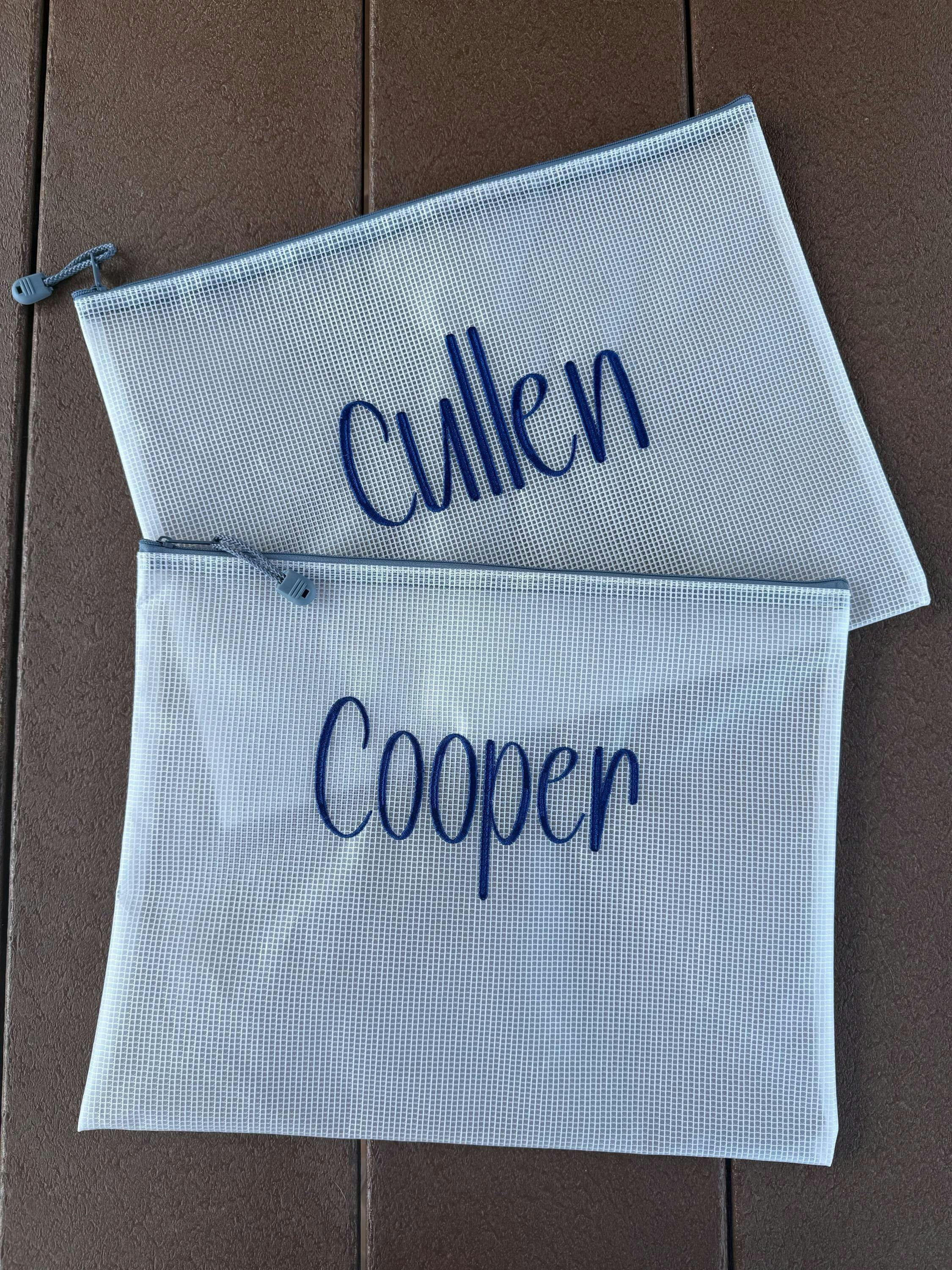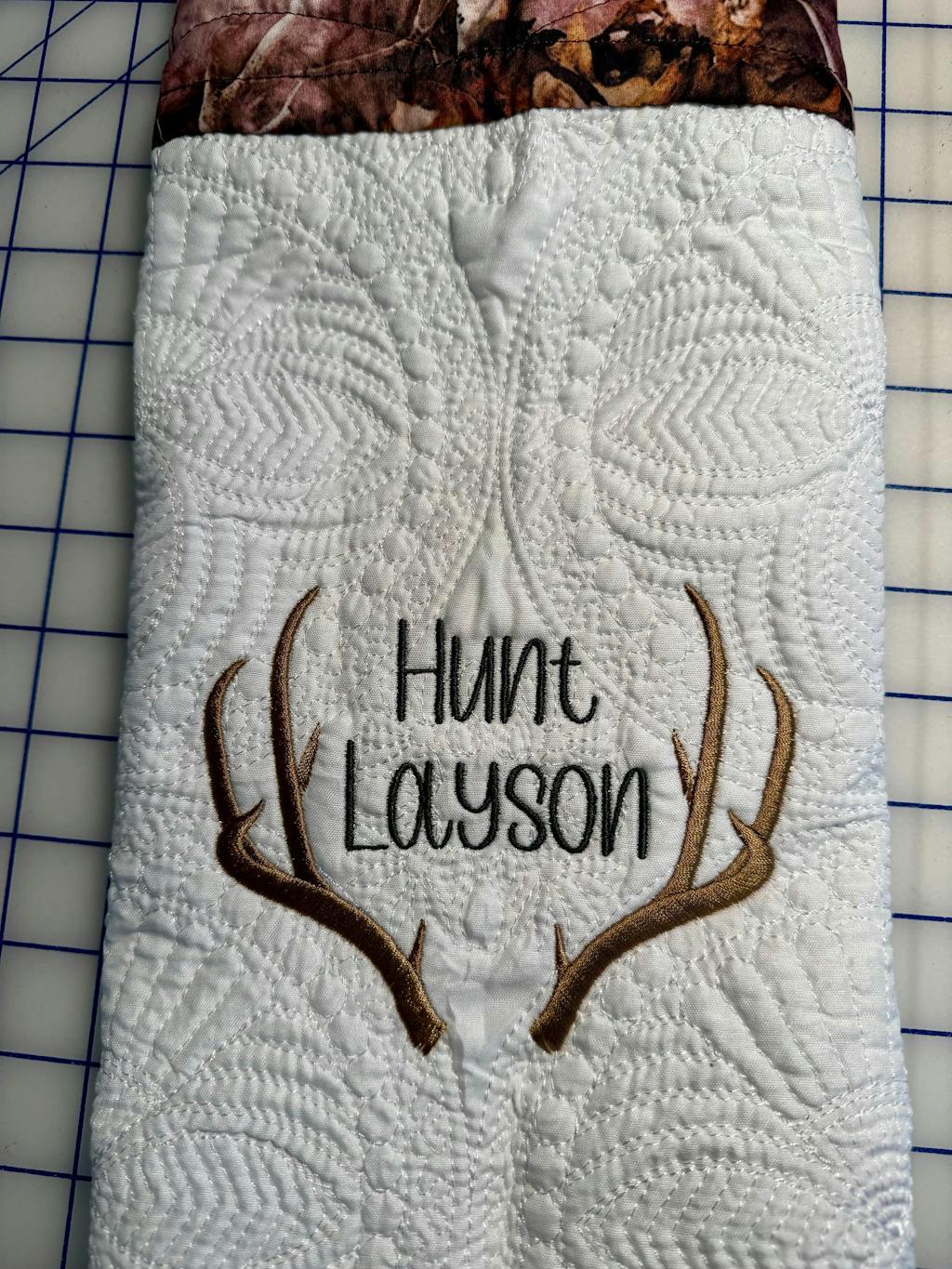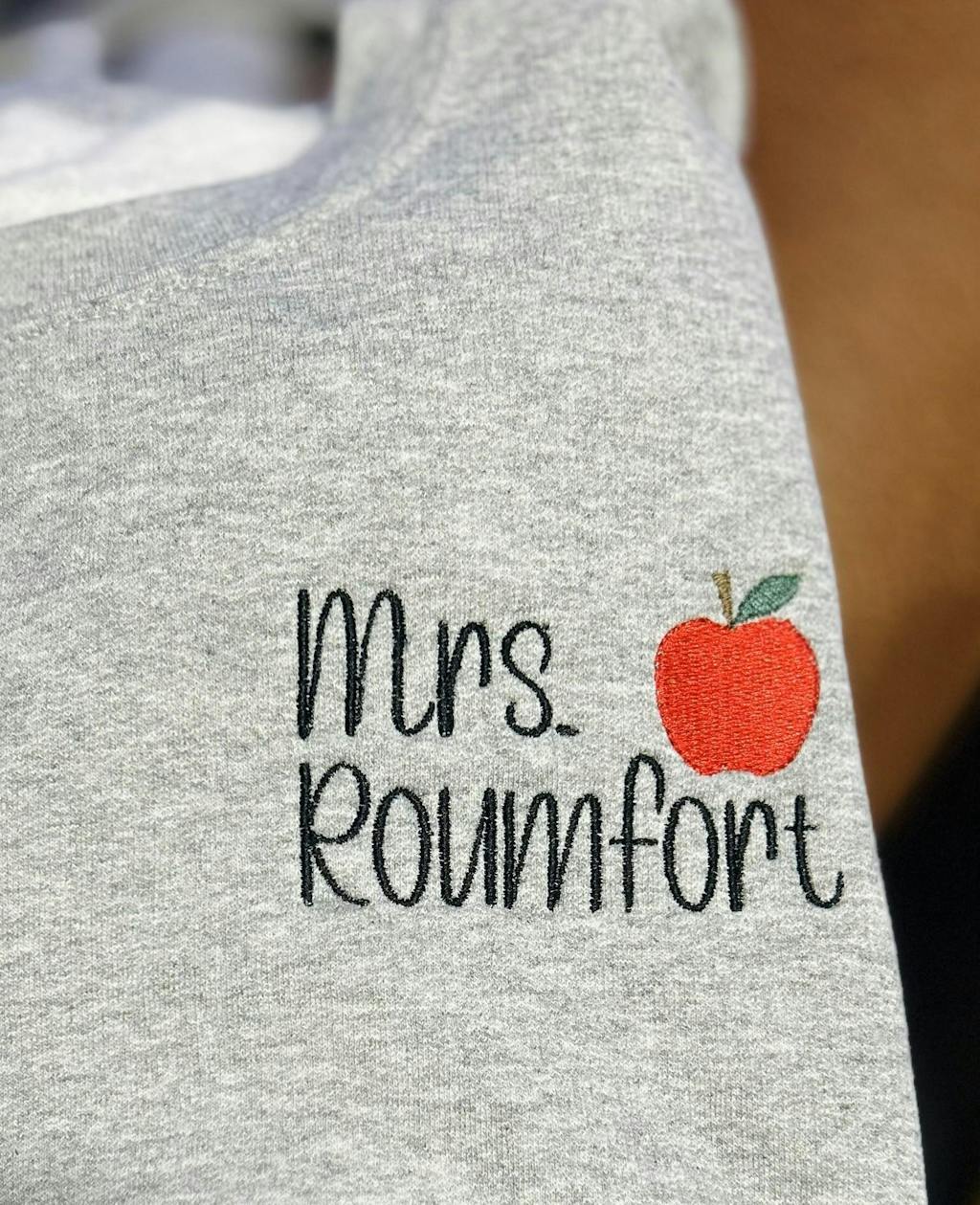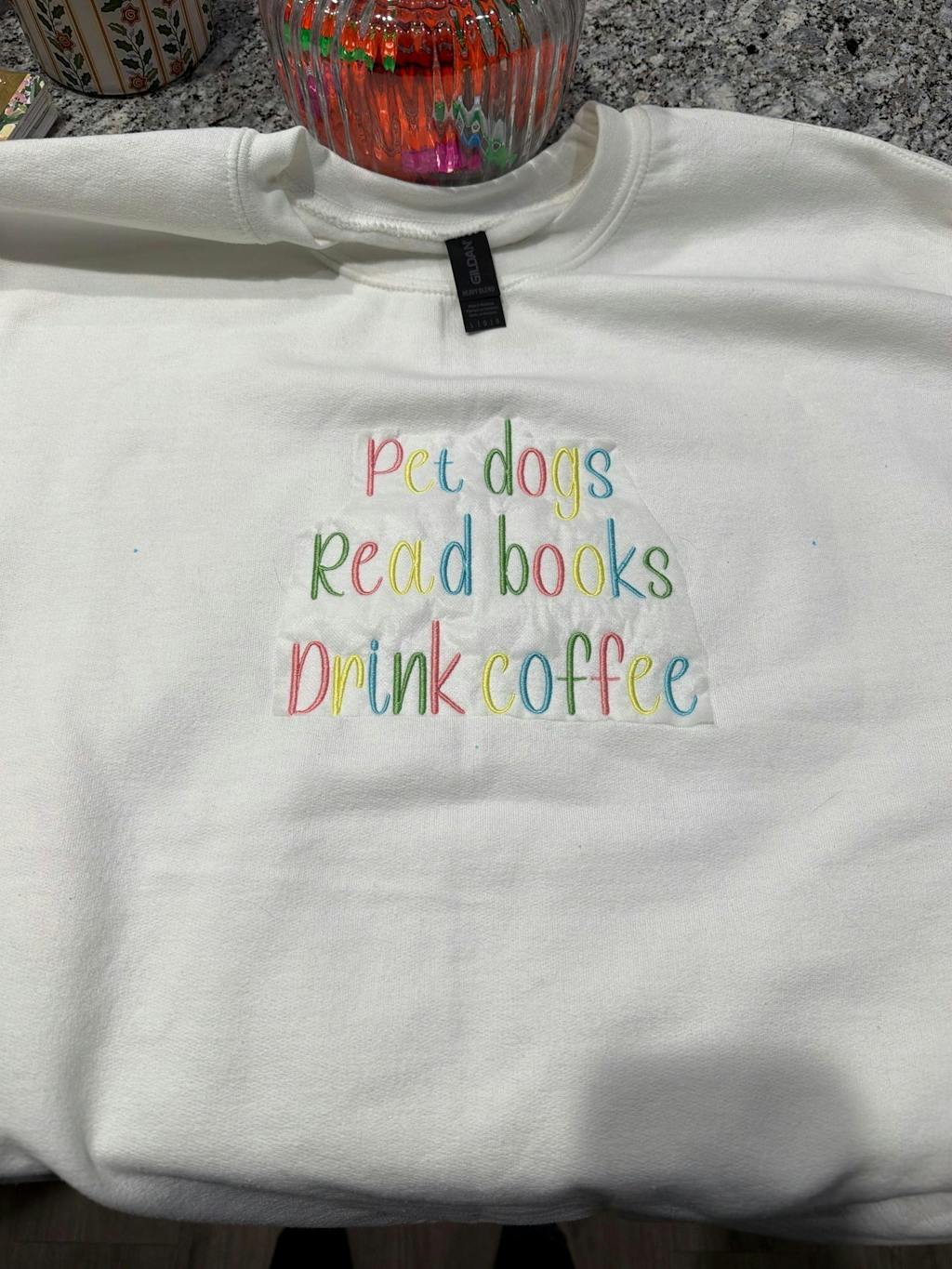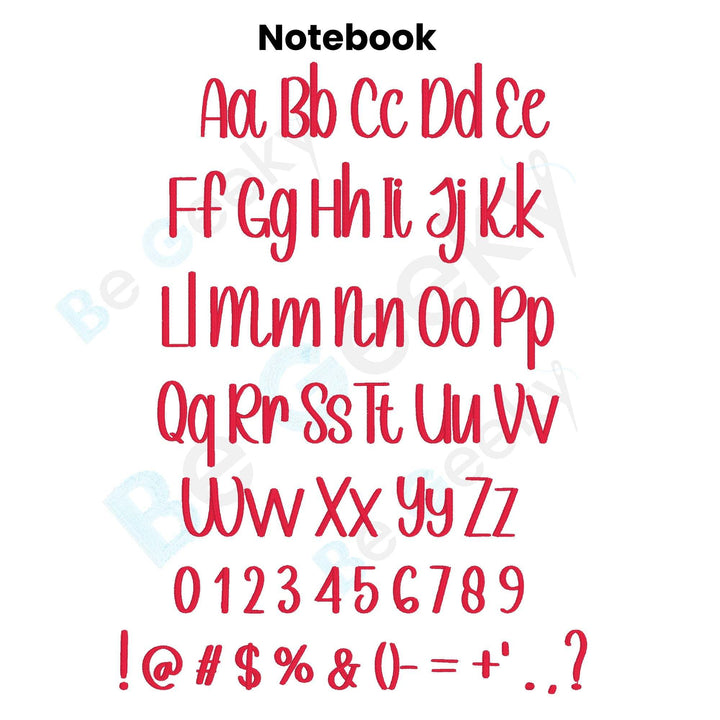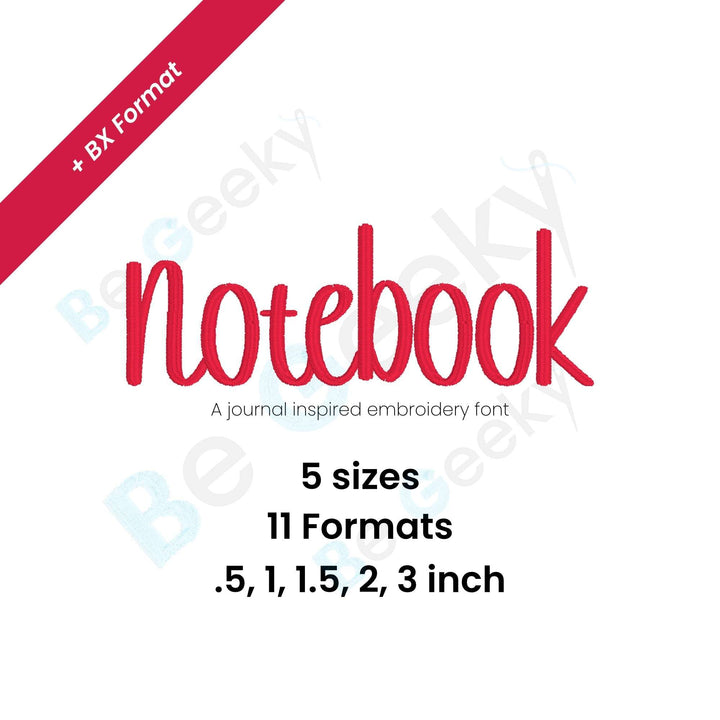
Photograph of Notebook embroidery font
Photograph of Notebook embroidery font alphabet
Notebook Digital Embroidery Font
Looking for a font that's both classic and versatile? Look no further than Notebook, the perfect choice for digital embroidery projects of all kinds. With its timeless script design and clean lines, Notebook is sure to add a touch of sophistication to any piece you create. Whether you're embroidering a tote bag, a pillowcase, or anything in between, Notebook has you covered. So why wait? Download Notebook today and start stitching your way to success!